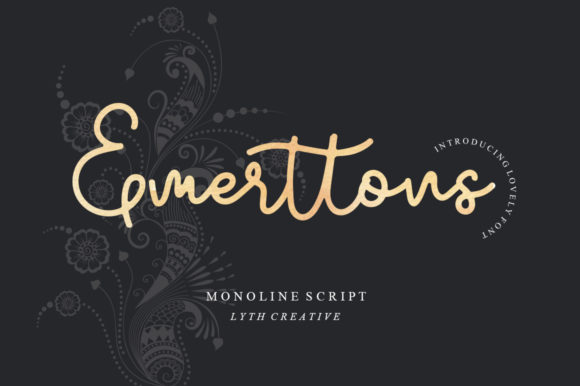
Introducing Emerttons Font: A Delicate Handwritten Font with a Touch of Elegance
Are you a designer or crafter looking for a unique and beautiful font to add a touch of elegance to your creative projects? Look no further than Emerttons Font, a stunning handwritten font that is sure to captivate your audience. With its sweet and delicate charm, Emerttons Font is the perfect addition to any design, from wedding invitations and branding materials to digital products and craft projects.
What Makes Emerttons Font So Special?
Emerttons Font is a beautiful, sweet, and delicate handwritten font that boasts a graceful charm. Its unique and elegant design makes it stand out from other fonts, and its versatility ensures that it can be used in a wide range of creative projects. Whether you’re looking to add a touch of sophistication to your branding materials or create a beautiful wedding invitation, Emerttons Font is the perfect choice.
Key Features of Emerttons Font
- Delicate and Elegant Design: Emerttons Font features a beautiful, handwritten design that is both sweet and delicate.
- Unique and Gracious Charm: The font’s unique charm makes it perfect for adding a touch of elegance to any creative project.
- Versatile and Flexible: Emerttons Font can be used in a wide range of creative projects, from digital products to craft projects.
- Easy to Read and Understand: Despite its delicate design, Emerttons Font is easy to read and understand, making it perfect for body text and headlines.
Emerttons Font is perfect for designers and crafters who are looking for a unique and beautiful font to add a touch of elegance to their creative projects. Whether you’re creating branding materials, digital products, or craft projects, Emerttons Font is sure to impress. Its delicate design and unique charm make it perfect for:
- Wedding Invitations and Stationery: Add a touch of elegance to your wedding invitations and stationery with Emerttons Font.
- Branding Materials: Use Emerttons Font to create beautiful and elegant branding materials, such as logos, business cards, and brochures.
- Digital Products: Emerttons Font is perfect for digital products, such as ebooks, printables, and planners.
- Craft Projects: Add a touch of elegance to your craft projects, such as handmade cards, scrapbooking, and DIY projects.
- Use it as a Headline Font: Emerttons Font is perfect for headlines and titles, where its delicate design and unique charm can really shine.
- Pair it with Other Fonts: Emerttons Font pairs well with other fonts, such as sans-serif fonts and script fonts.
- Experiment with Different Sizes and Colors: Don’t be afraid to experiment with different sizes and colors to find the perfect look for your design.
In conclusion, Emerttons Font is a beautiful, sweet, and delicate handwritten font that is perfect for designers and crafters who are looking for a unique and elegant font to add a touch of charm to their creative projects. With its delicate design, unique charm, and versatility, Emerttons Font is sure to impress. So why wait? Download Emerttons Font today and start creating beautiful and elegant designs that will captivate your audience.